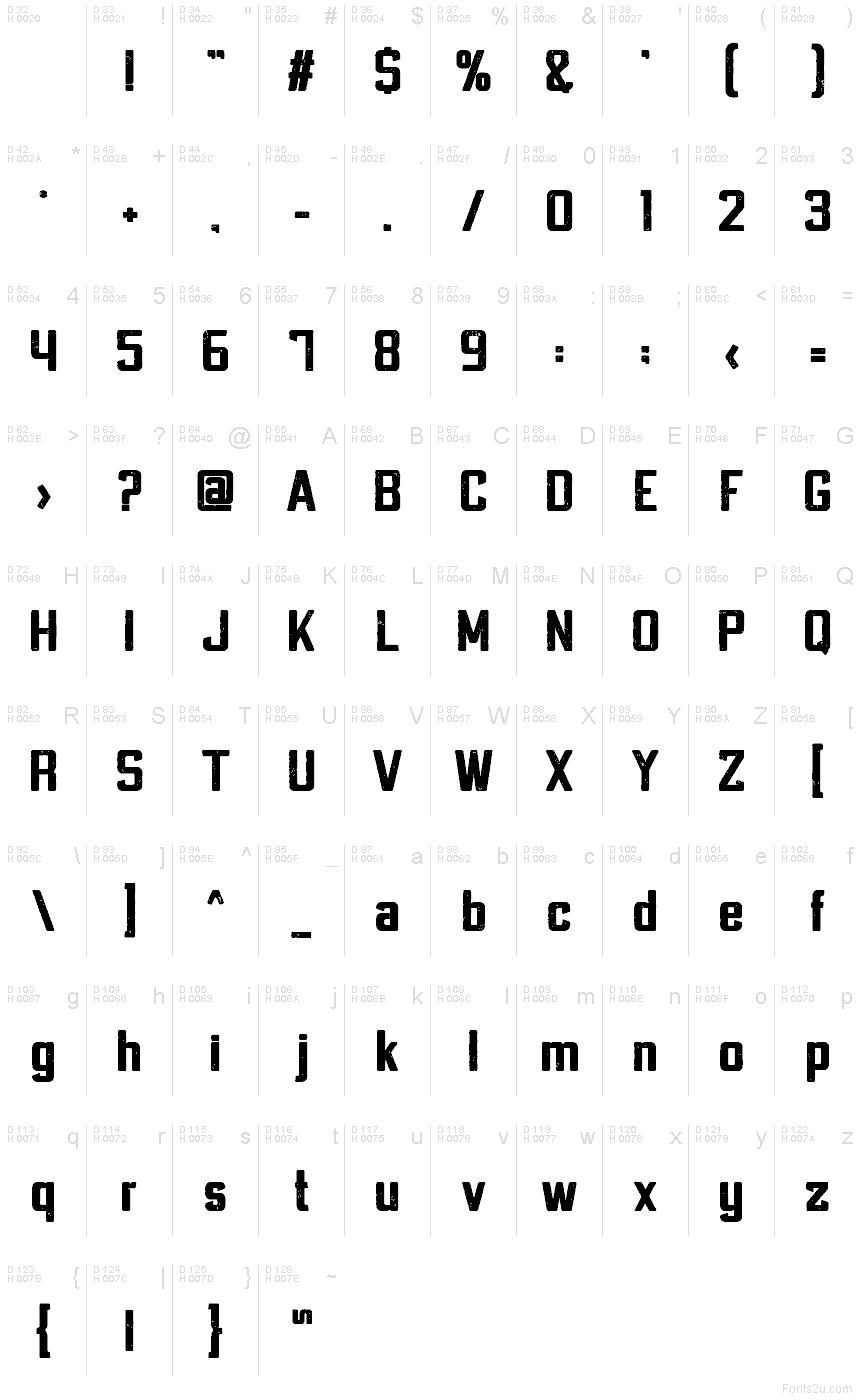
Molard One Bold
Molard One Bold font by PutraCetol Studio explores the potential of destruction, literally and artistically. This free eroded, condensed, and display font features the totality of its erosion effect alongside uniform characters with sharp angles and strong presence. It also carries a hidden industrial high-tech vibe recognizable in various display scenarios.
Many uses are possible from presenting movie posters titles, eSport teams logos, website headers for home automation companies to banners contact information on construction-related work vehicles.